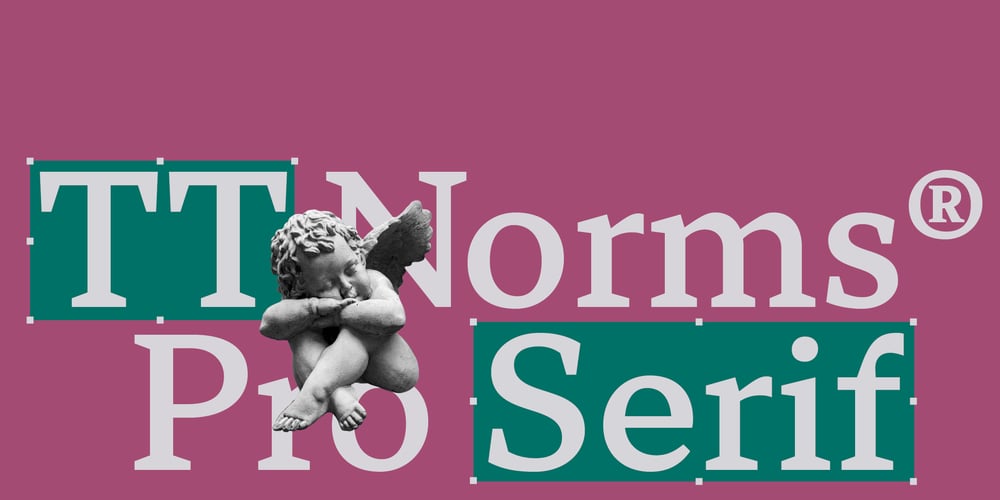
TT Norms Pro Serif Font Family was designed by Marina Khodak, Yulia Gonina, TypeType Team and published by TypeType. TT Norms Pro Serif contains 24 styles and family package options. Introducing TT Norms® Pro Serif, version 1.100! The updated font now has new OpenType features and localization for the Serbian and Bulgarian languages. TT Norms® Pro Serif is a functional serif based on our studio’s main bestseller—the versatile sans serif TT Norms® Pro. Together, they form an ideal font pair. Although these typefaces are made for each other, they can easily be used independently and paired with other fonts. So, TT Norms® Pro Serif is a self-sufficient and elegant serif, neutral at the same time. It is easy to recognize due to its gentle proportion dynamics, open aperture, slanted oval axis, and low stroke contrast. Another distinctive feature of this font is brutal serifs that adjust in length according to the weight of the font. As well as TT Norms Pro, there are Italic font styles in TT Norms® Pro Serif. However, for this serif, we have designed true italics instead of simple slanted font styles. Their key feature is the ability of the lowercase letterforms to change in reference to the roman font styles. They become more rounded, moving towards handwritten shapes. The nature of the italics turned out sharper than that of the roman font styles. It can be used to place accents that would attract attention without interfering with the process of reading. TT Norms® Pro Serif is capable of solving multiple design tasks. It is highly readable, which makes it convenient for small point sizes. This serif’s application range is broad and diverse: it can be used for websites, printed materials, and packaging design. The font is well-suited for projects in the domains of culture, art, history, or literature and can be implemented into the designs of signs, posters, or premium products and services. TT Norms® Pro Serif, version 1.100, consists of: 24 font styles: 11 roman, 11 italic, and 2 variable fonts (one for the roman font styles and another—for italics); 1380 glyphs in each font style; 31 OpenType features, including options for localization.